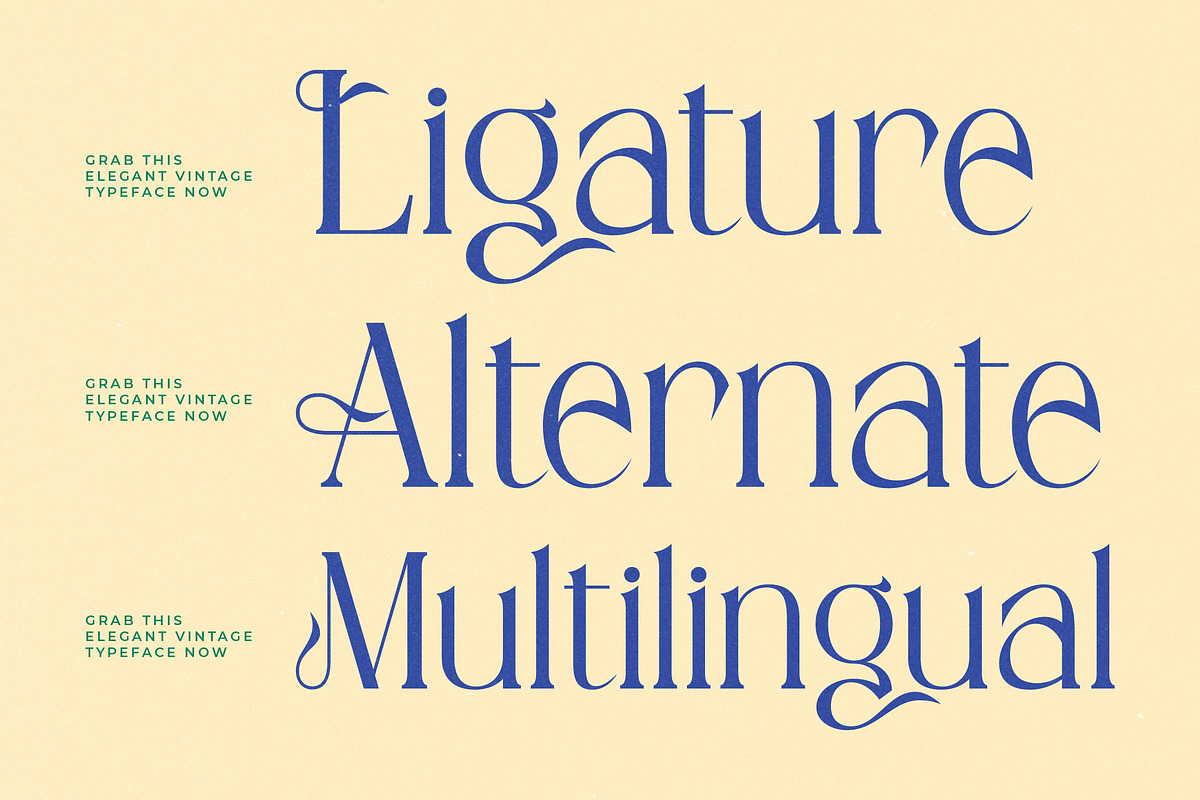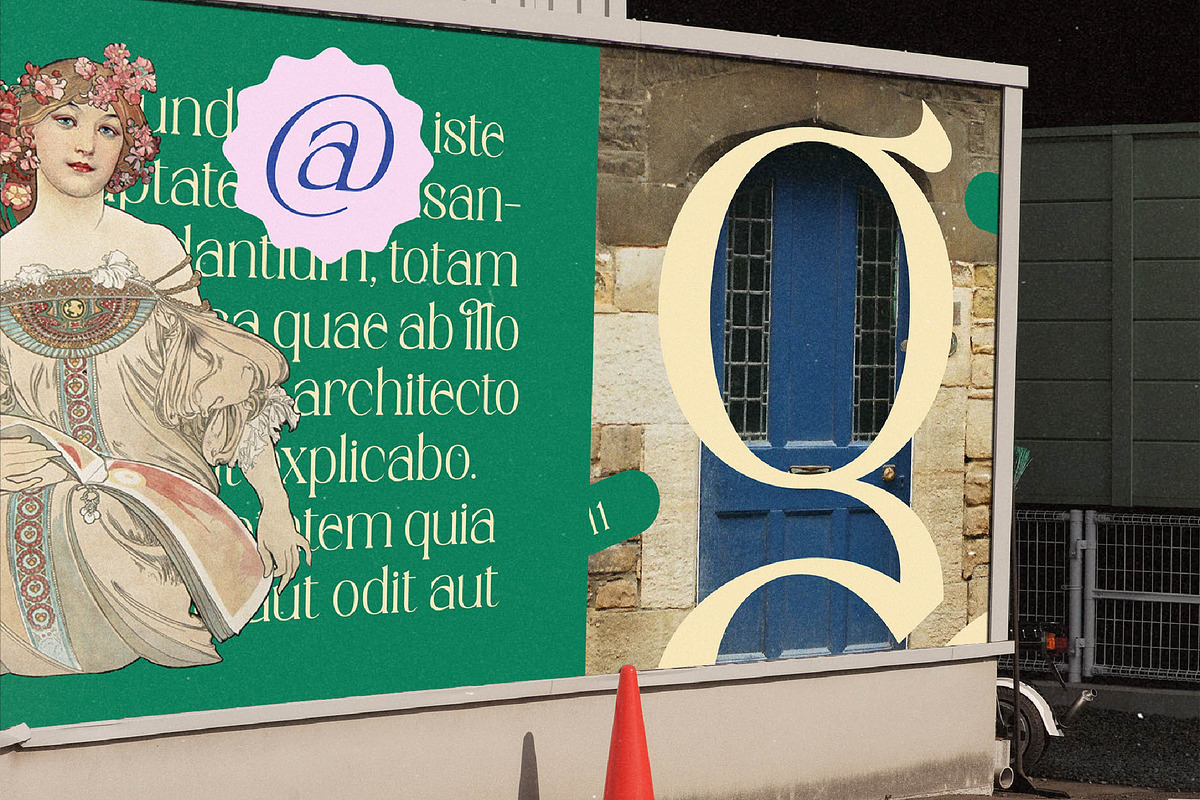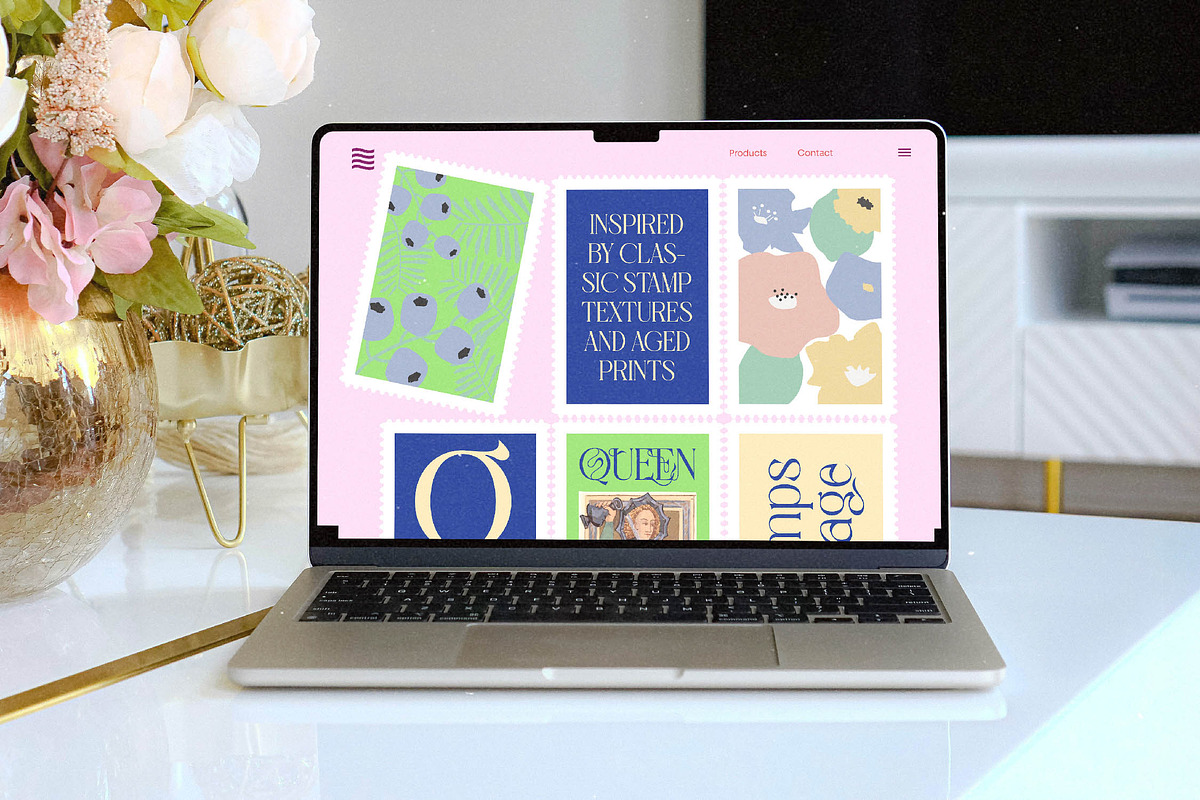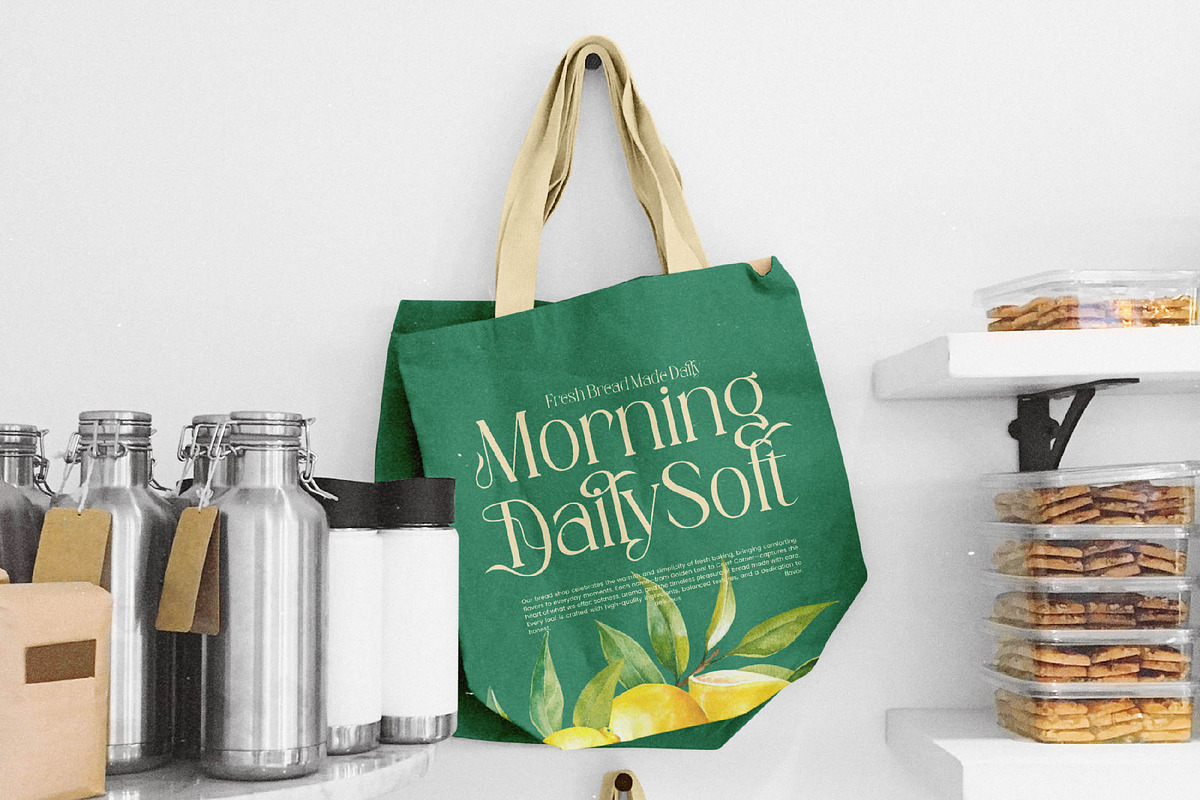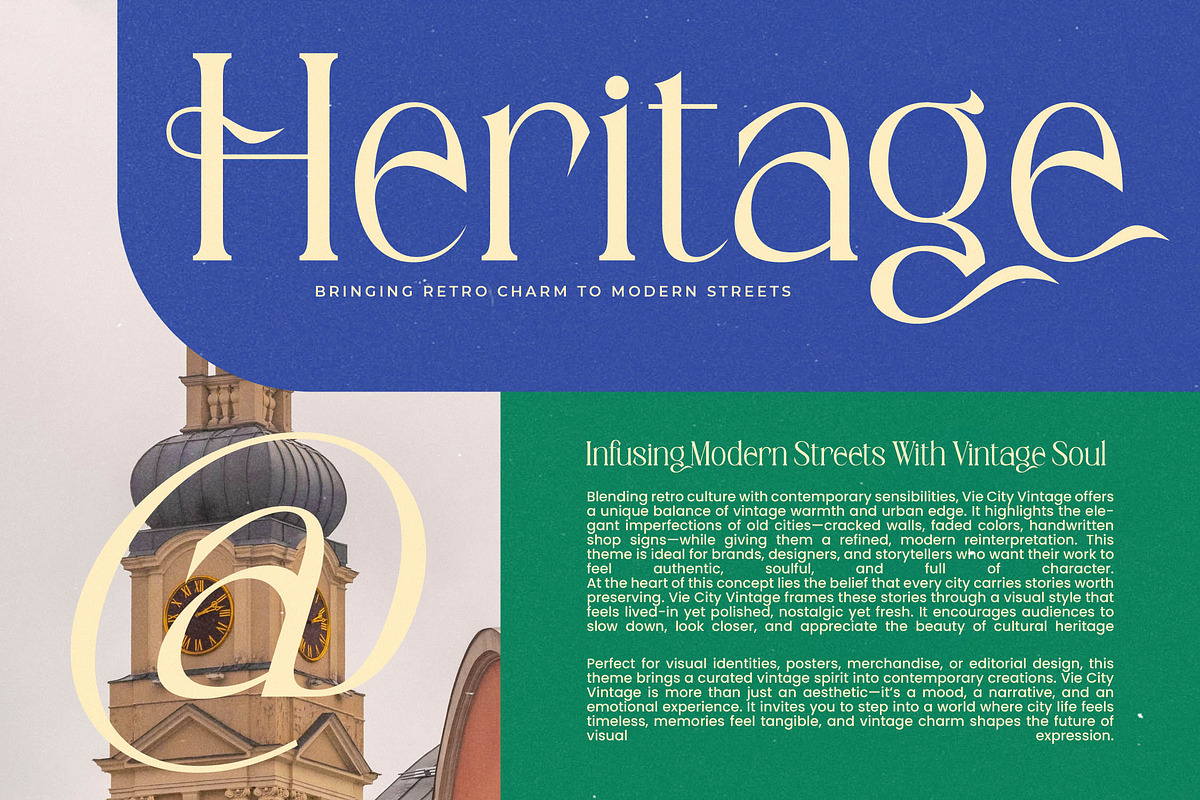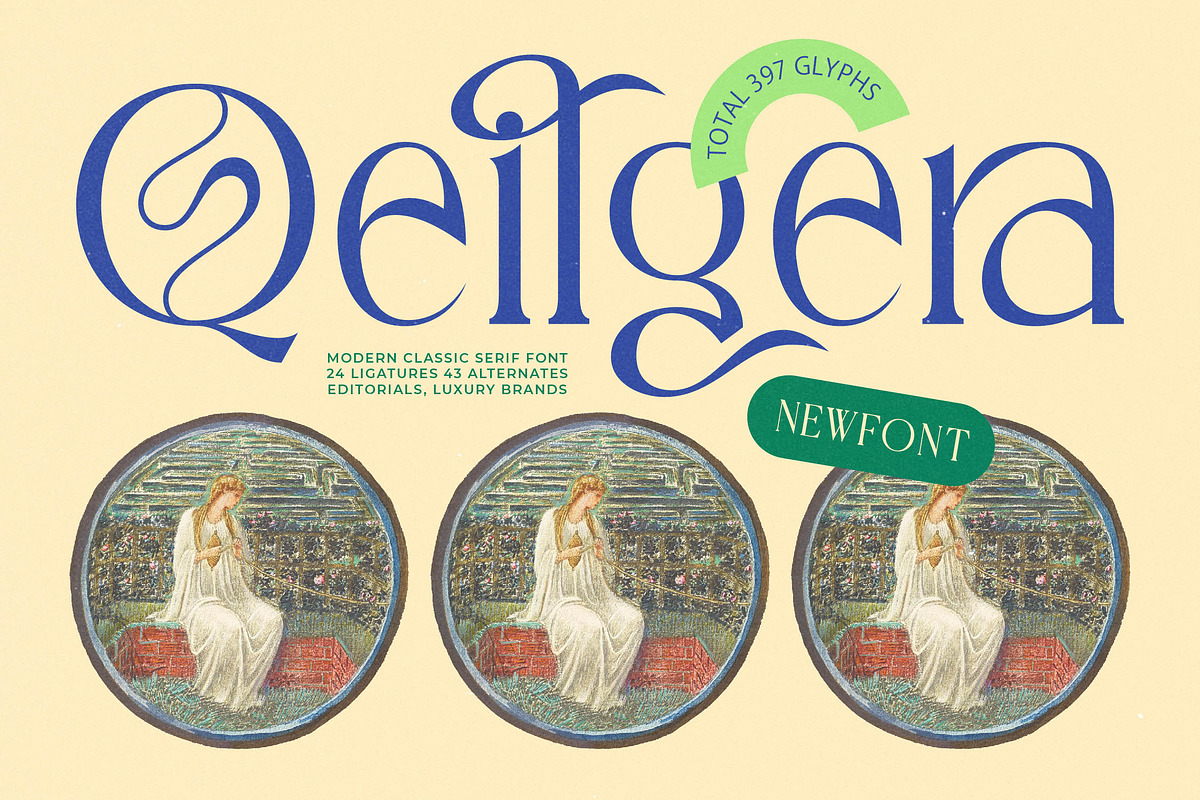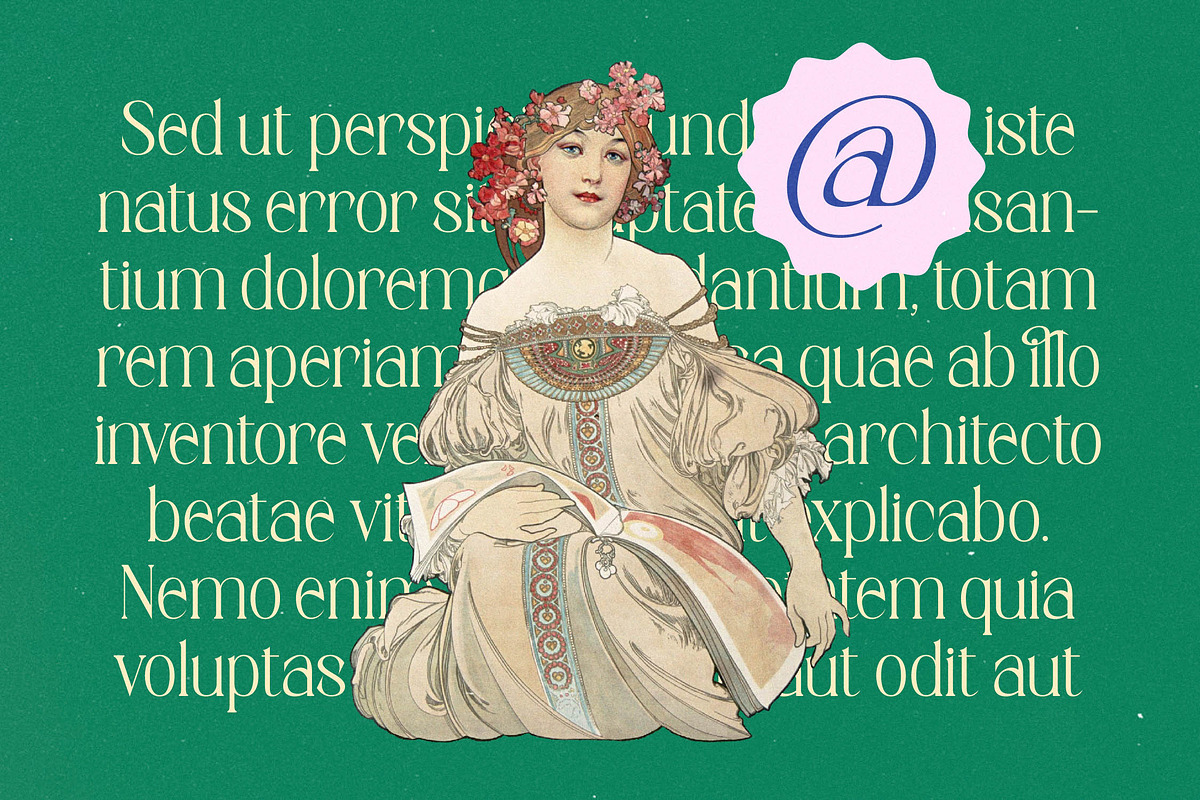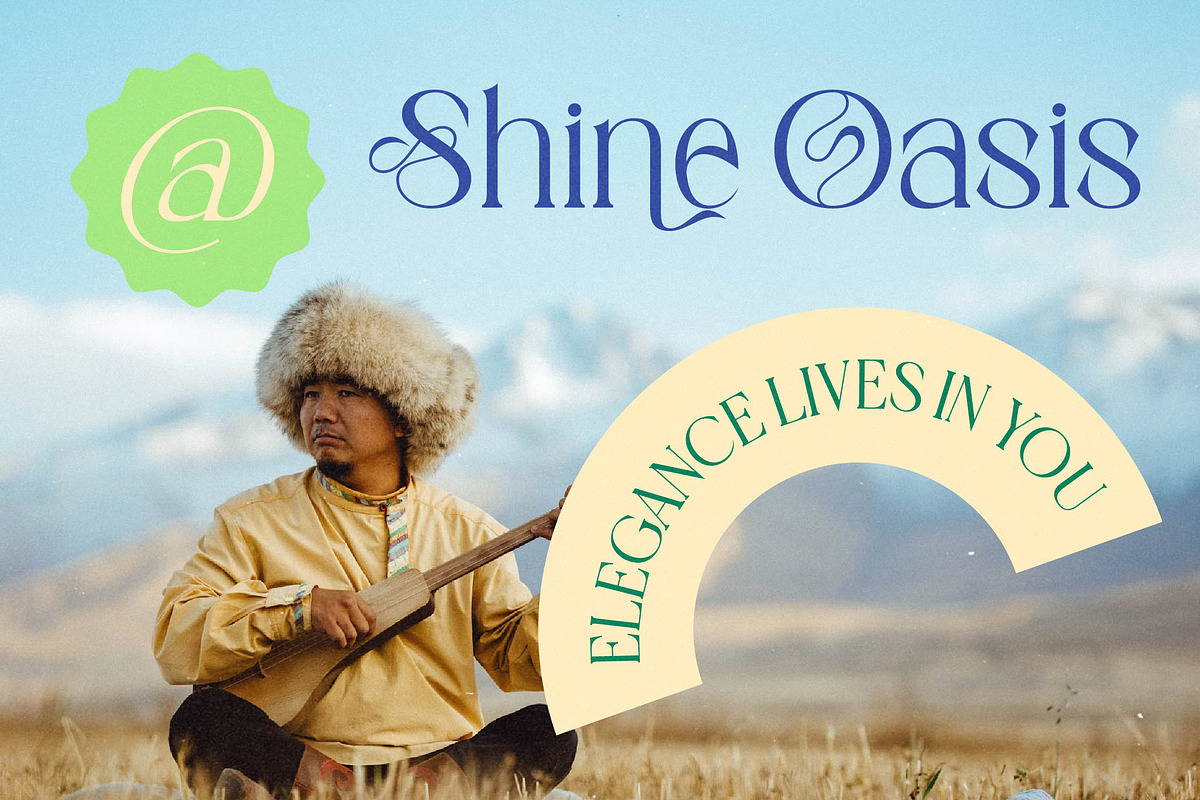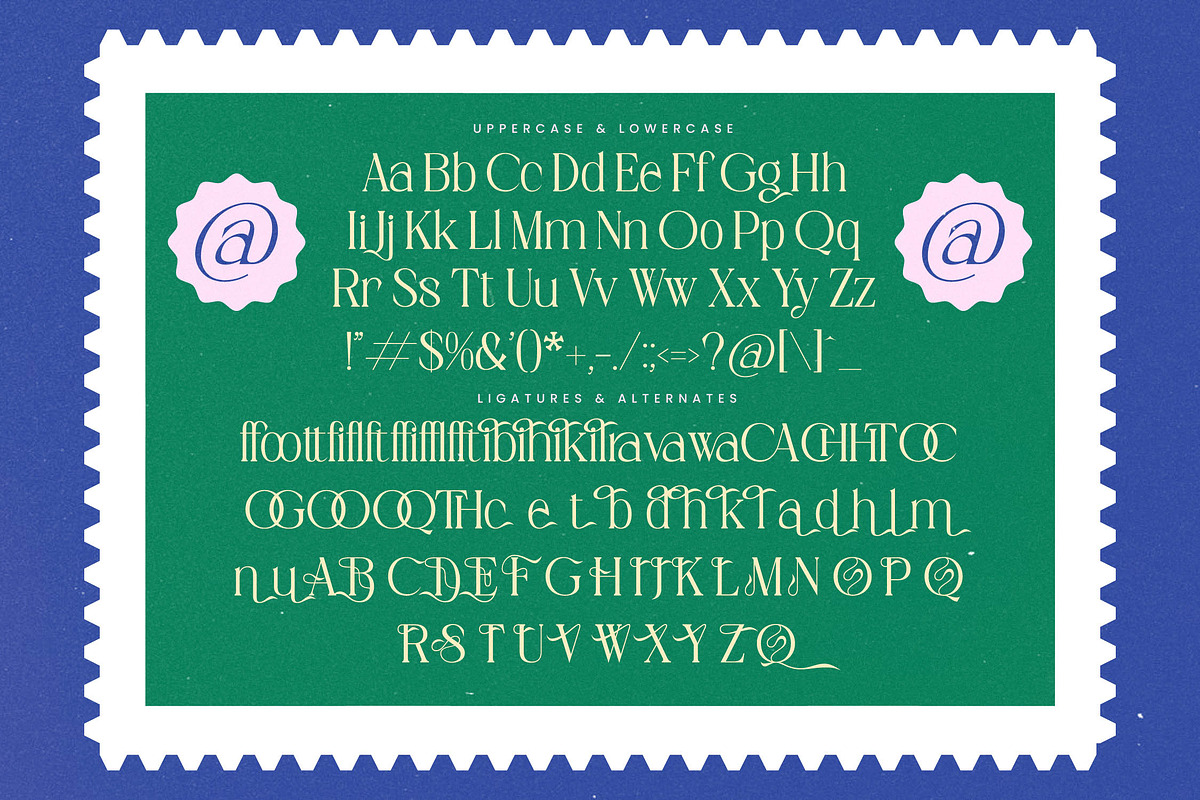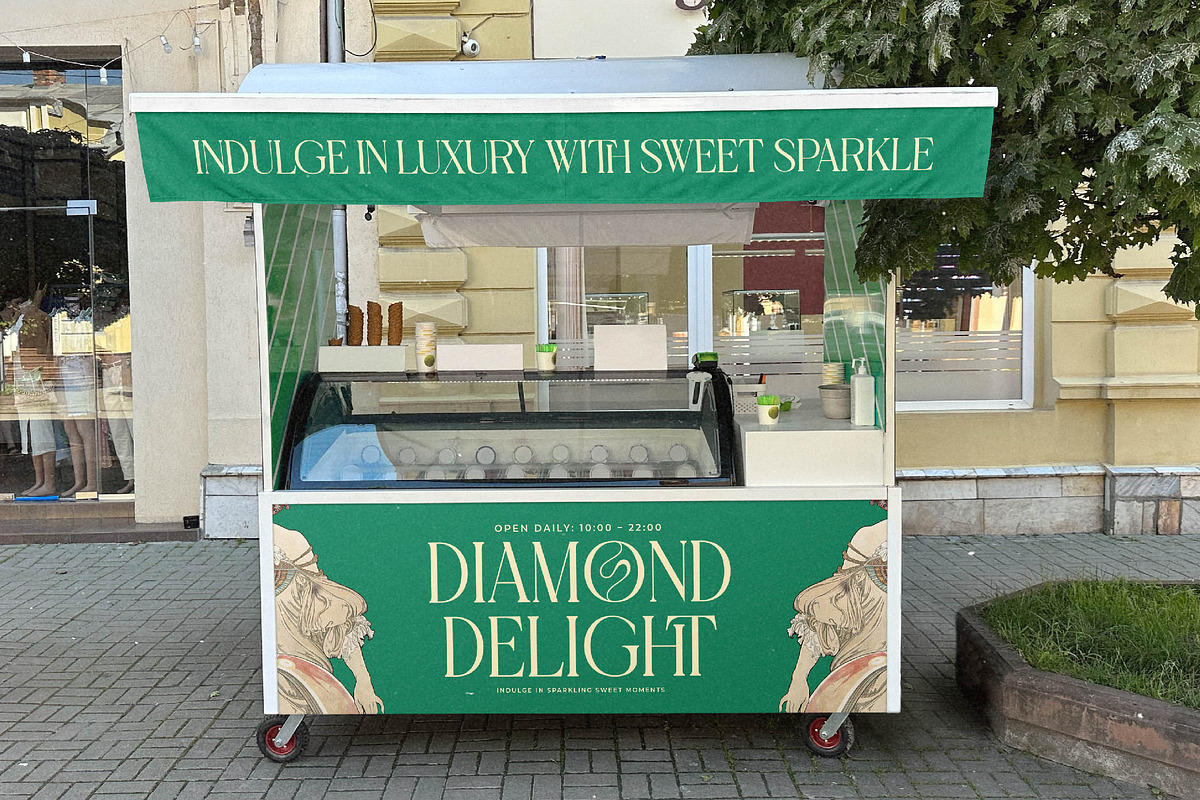
Qeilgera Modern Luxury Serif
Elevate your creative vision with Qeilgera, a masterpiece of typographic elegance that bridges the gap between classical grace and contemporary flair. This typeface captures a sense of timeless sophistication, making every word feel like a curated piece of art.
Drawing inspiration from the delicate linework of vintage illustrations and the grandeur of historical manuscripts, this font breathes life into the spirit of high-end aesthetics. Its flowing curves and sharp serifs evoke an atmosphere of quiet luxury and intellectual depth, reminiscent of a prestige gallery opening.
Designed with a focus on modern serif display and luxury typography, this font commands attention through its high-contrast serif details. It is the quintessential editorial font for those seeking a profound branding impact that resonates with an audience of discerning tastes.
Aligning perfectly with the current modern serif trend, this typeface stands out among editorial display fonts for its unique ability to blend tradition with innovation. It champions character-driven typography that transforms standard layouts into memorable visual experiences.
This versatile tool is ideal for sophisticated logo design and comprehensive corporate branding projects that require a touch of class. From high-end editorial spreads and bespoke packaging to romantic wedding invitations and avant-garde fashion lookbooks, it delivers unrivaled beauty.
This comprehensive package features a stunning array of ligatures and unique alternates that allow for endless customization. With decorative swashes and full multilingual support including international characters, it ensures your message is conveyed beautifully across the globe.